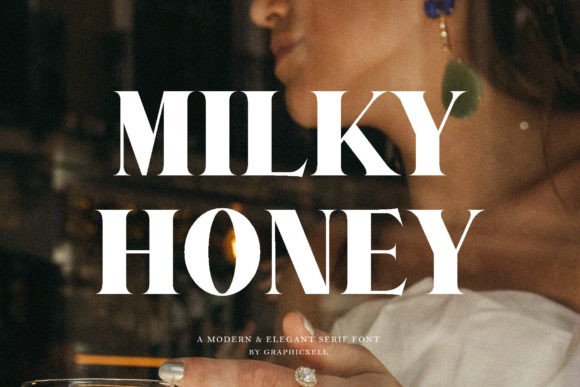
Embark on a typographic journey with Milky Honey, a modern serif font that will elevate your design projects with its timeless charm and contemporary sophistication. Designed by Graphicxell, Milky Honey blends classic elegance with a fresh, contemporary aesthetic.
Picture this: Your fashion brand's logo adorned with Milky Honey's graceful curves, exuding an air of luxury and distinction. Your clothing line website comes alive with Milky Honey's sleek serifs, inviting customers to explore your stylish creations. From elegant editorials to high-end branding, Milky Honey effortlessly elevates the visual impact of your designs.
This versatile font family captivates with its wide range of applications. Its clean and precise lines lend a sleek, minimalist touch to modern websites and digital designs. Its timeless elegance adds a touch of sophistication to print materials, from brochures and flyers to magazines and books. Milky Honey's versatility shines across various mediums, enhancing your designs with its timeless appeal.
Experience the creative freedom that Milky Honey offers. Its meticulously crafted characters provide endless possibilities for expressing your unique style. Whether you're a fashion designer seeking to create a distinctive brand identity or a graphic artist seeking to add a touch of elegance to your projects, Milky Honey is your perfect companion.
Indulge in the beauty of Milky Honey, a font that transforms your designs into works of art. Its modern yet classic aesthetic adds a touch of sophistication that sets your projects apart. Let Milky Honey's timeless elegance elevate your designs to new heights of creativity and professionalism.